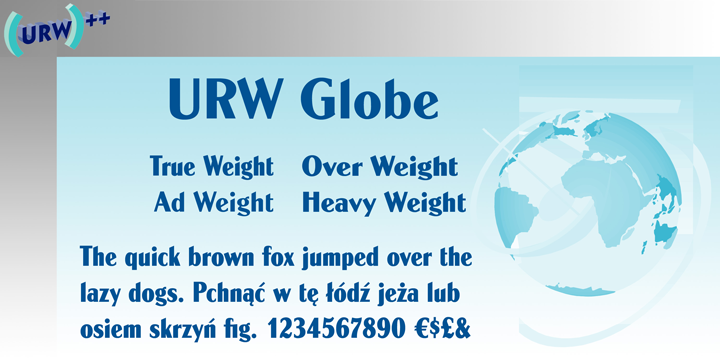
Globe Font is perfect for travel agencies, international business branding, world maps, global marketing campaigns, airline companies, shipping logistics, tourism websites, multinational corporations, geographical publications, and educational materials that require modern typography with worldwide appeal and professional versatility.
What makes Globe Font so exciting is its perfect embodiment of global connectivity and international sophistication. This font features rounded, approachable letterforms that convey unity and accessibility while maintaining professional credibility across diverse cultural contexts. The carefully crafted characters possess a universal appeal that transcends geographical boundaries, making it ideal for brands and organizations with international reach and multicultural audiences.
The Globe Font family includes multiple weights and styles: Thin, Light, Regular, Medium, Bold, Black, and their corresponding Italic variants. Each weight maintains the signature global character while offering comprehensive flexibility for international design applications and multilingual typographic requirements.
International designers consistently choose Globe Font Free Download for projects requiring universal typography that communicates across cultures and languages. Whether you're developing global brand identities, creating international marketing materials, designing multilingual websites, or crafting educational content for diverse audiences, this font delivers exceptional versatility and cross-cultural appeal. The font's extensive character set supports multiple languages and international symbols while ensuring optimal readability across all digital platforms and print media, making it an essential resource for designers working on global projects that demand professional, accessible, and culturally inclusive typography solutions.